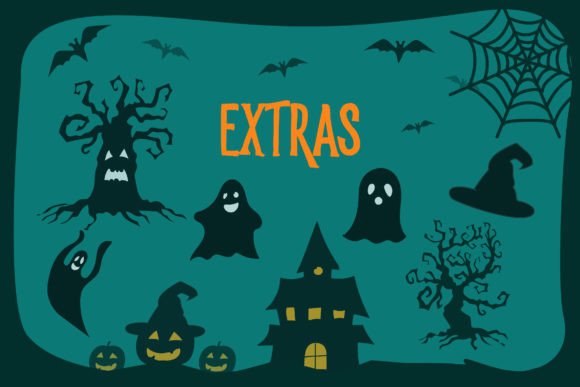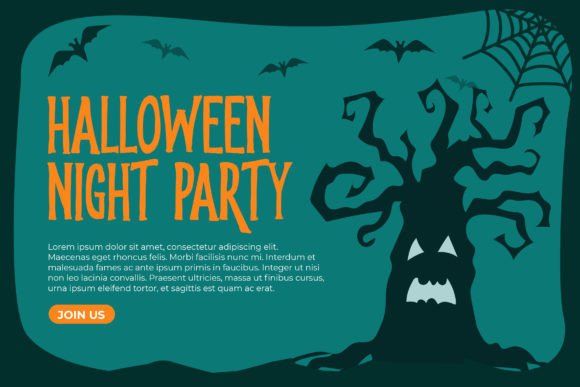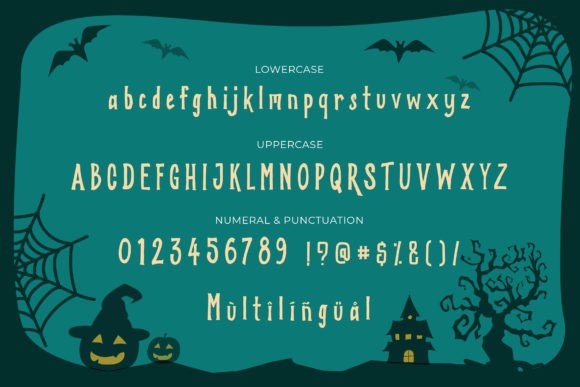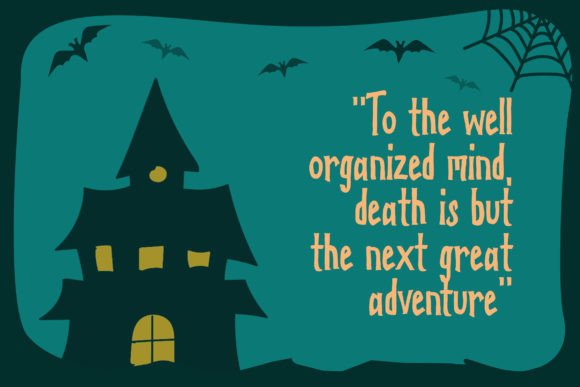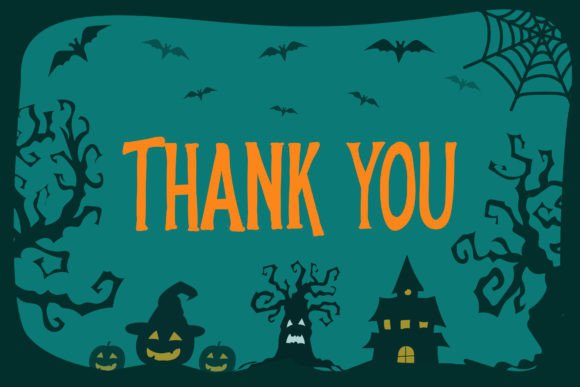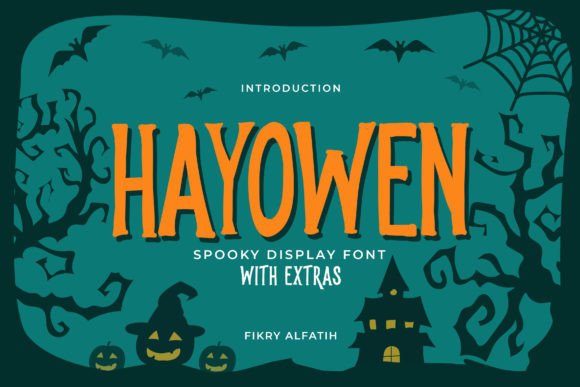
Introducing Hayowen Font: The Spooky and Mysterious Display Font for Halloween
Are you looking for a font that will add a touch of spookiness and mystery to your Halloween party projects? Look no further than Hayowen Font! This display font is specifically designed to complement your Halloween party decorations, invitations, and other creative projects. With its unique and eerie style, Hayowen Font is guaranteed to make your projects stand out from the crowd.
The Inspiration Behind Hayowen Font
Hayowen Font is inspired by the spooky and mysterious atmosphere of Halloween. The font’s creator aimed to design a font that would capture the essence of the holiday and add a touch of eeriness to any project. The result is a font that is both creepy and fascinating, perfect for designers and crafters who want to create unique and eye-catching projects.
Key Features of Hayowen Font
Hayowen Font has several key features that make it perfect for Halloween party projects. Some of its notable features include:
- Unique and Eerie Style: Hayowen Font has a distinctive and eerie style that is sure to grab attention.
- Display Font: This font is specifically designed as a display font, making it perfect for headlines, titles, and other prominent text elements.
- Highly Readable: Despite its unique style, Hayowen Font is highly readable, even at smaller sizes.
- Multilingual Support: Hayowen Font supports multiple languages, making it a great choice for designers and crafters who work with international clients.
Uses for Hayowen Font
Hayowen Font is a versatile font that can be used in a variety of projects, including:
- Halloween Party Invitations: Create spooky and eye-catching invitations that will set the tone for your Halloween party.
- Halloween Decorations: Use Hayowen Font to create spooky banners, signs, and other decorations for your Halloween party.
- Graphic Design Projects: Add a touch of spookiness to your graphic design projects, such as brochures, flyers, and posters.
- Crafting Projects: Use Hayowen Font to create unique and personalized crafting projects, such as Halloween-themed cards, gift tags, and other paper crafts.
Tips for Using Hayowen Font
Here are some tips for using Hayowen Font in your projects:
- Use it Sparingly: Hayowen Font is a bold and eye-catching font, so use it sparingly to avoid overwhelming your project.
- Pair it with Other Fonts: Pair Hayowen Font with other fonts to create a unique and interesting contrast.
- Experiment with Colors: Experiment with different colors to find the perfect combination that complements your project.
Hayowen Font is a unique and eerie display font that is perfect for Halloween party projects. With its spooky and mysterious style, this font is guaranteed to make your projects stand out from the crowd. Whether you’re a designer or crafter, Hayowen Font is a great addition to your font collection. So why not give it a try and see how it can add a touch of spookiness to your next project?